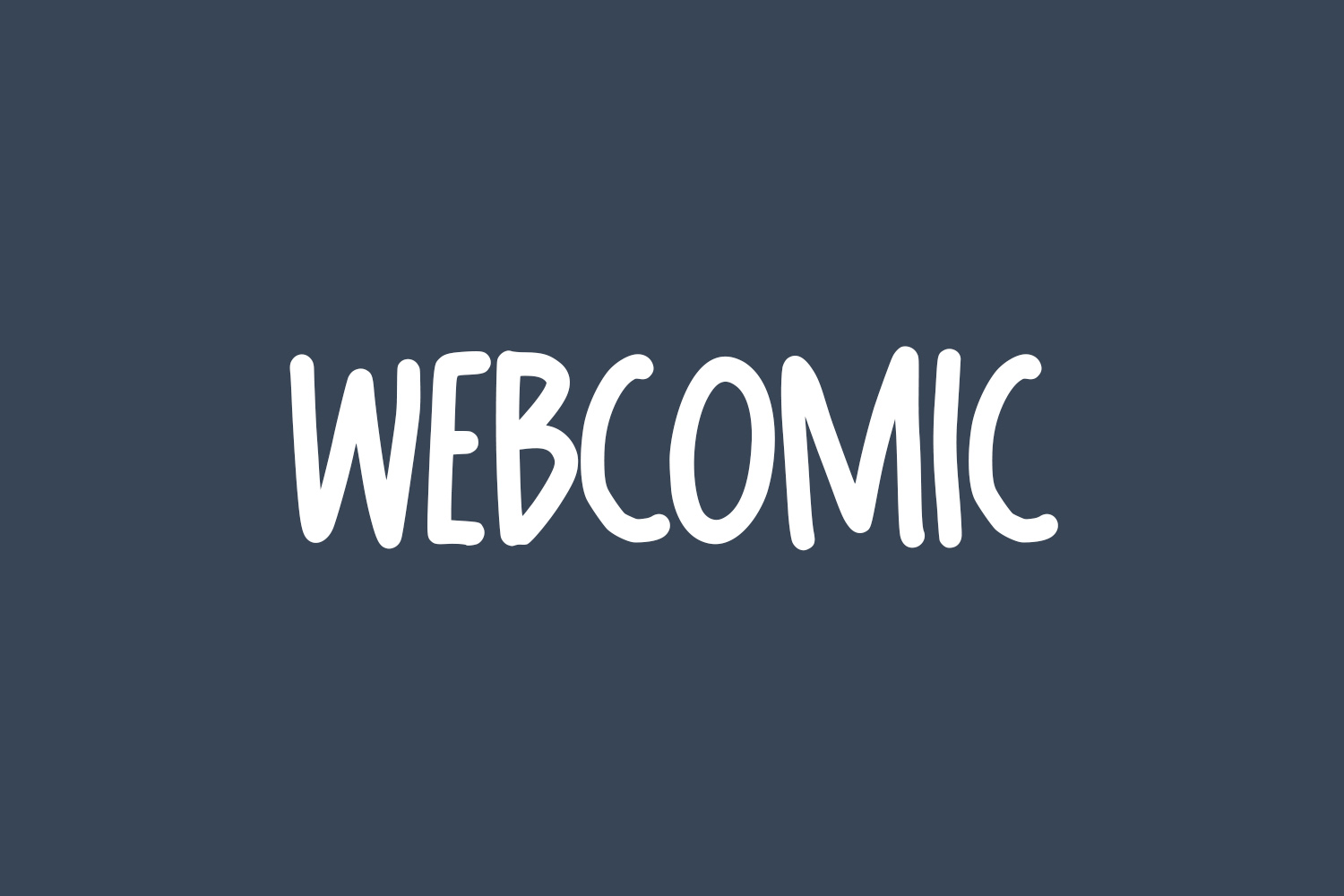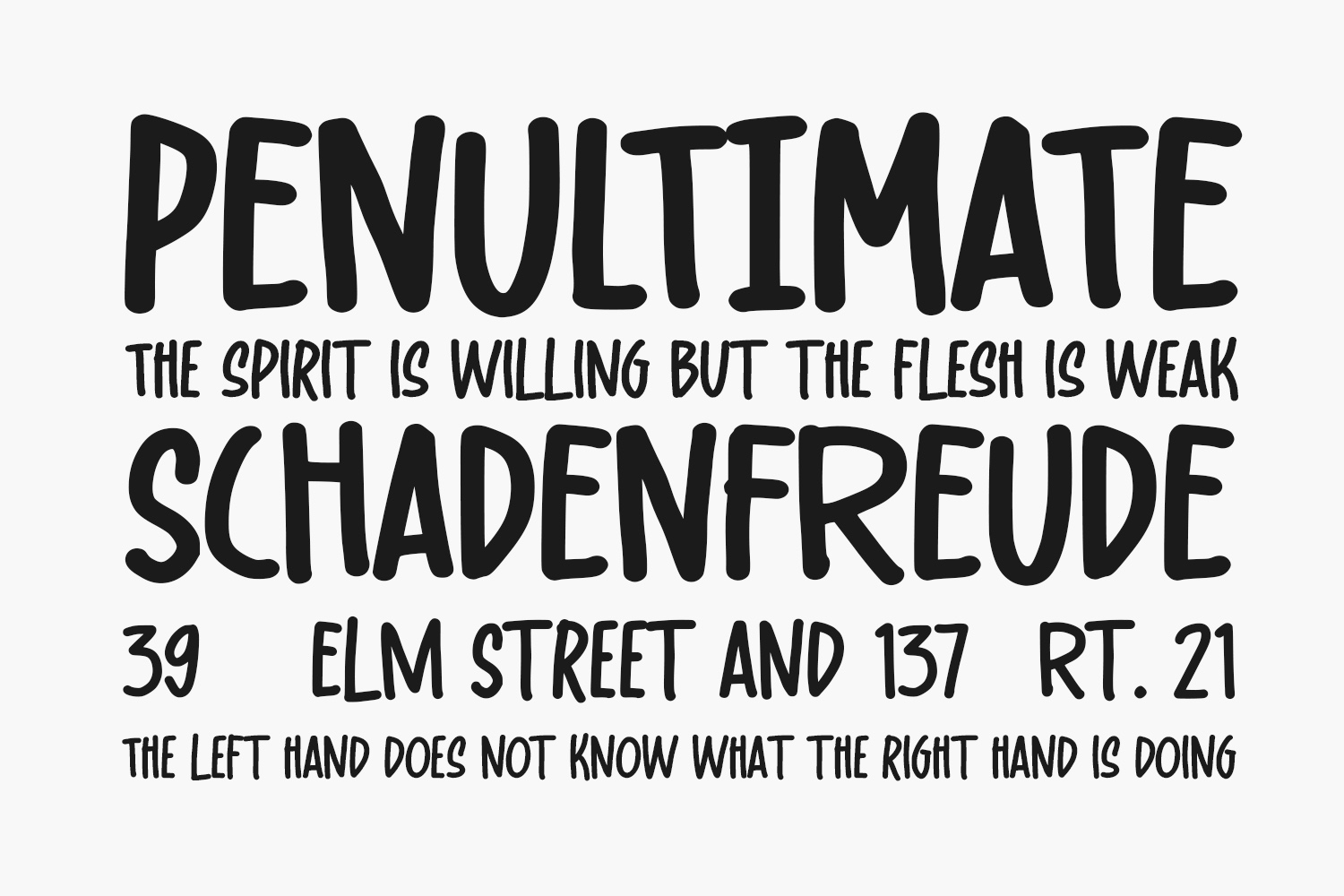
Webcomic Free Font is a simple, quirky and adaptable handwritten font. Its informal style and casual vibe will make this font a go-to choice for each of the creations that require a relaxed touch. Webcomic Free Font was designed by Gassstype and is free for personal use only. Please purchase the full version for commercial use.